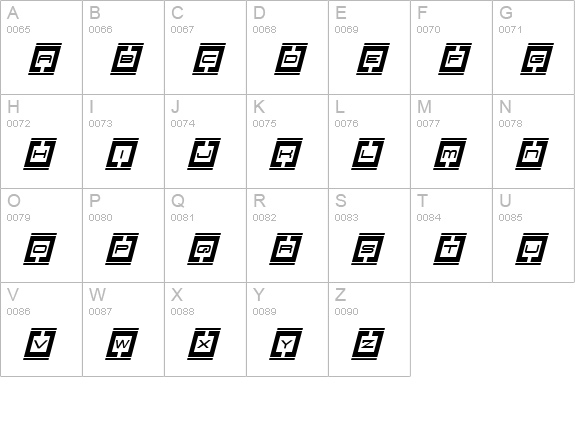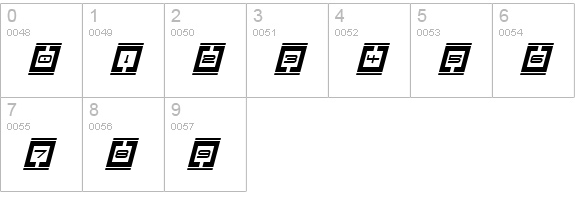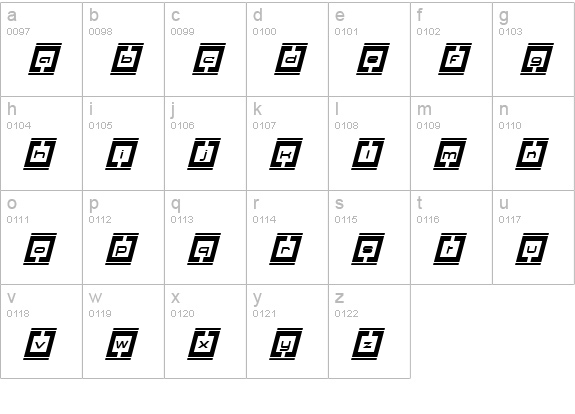
Border Base Future Italic is a distinctive, italic variant in the Border typeface family \xE2\x80\x94 well suited to design and typography projects.
Border Base Future Italic is a sleek and modern font that exudes a futuristic vibe with its sharp edges and elegant curves. This typeface is perfect for projects that require a contemporary and edgy look, making it ideal for branding, advertising, and digital designs. The italic style adds a touch of sophistication and flair, making your text stand out effortlessly. What sets Border Base Future Italic apart is that it is available for free download at FontsMarket.com. This means that you can easily access this stylish font without any cost, making it a valuable addition to your font collection. Whether you're a professional designer or a hobbyist, Border Base Future Italic offers a versatile and eye-catching option for your creative projects. Download this font today and elevate your designs with its modern and futuristic aesthetic.